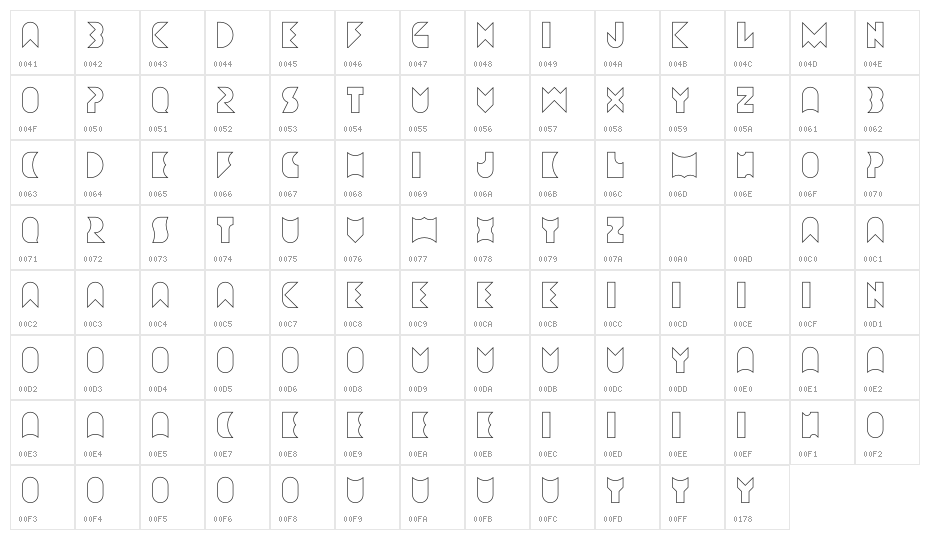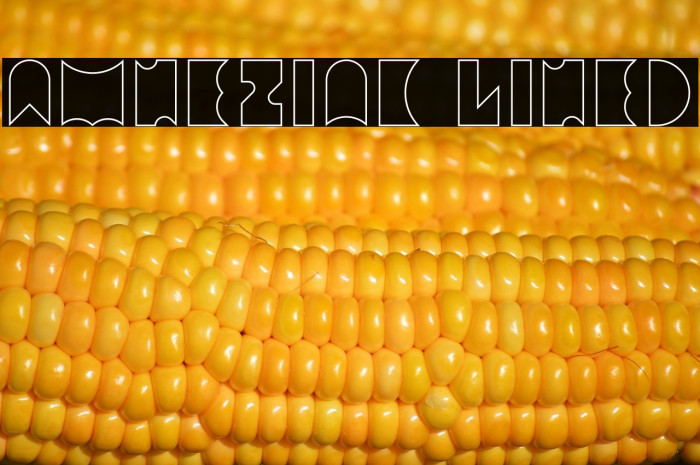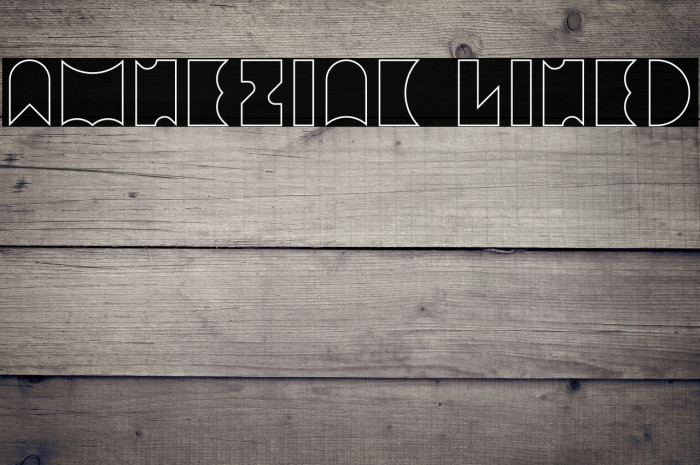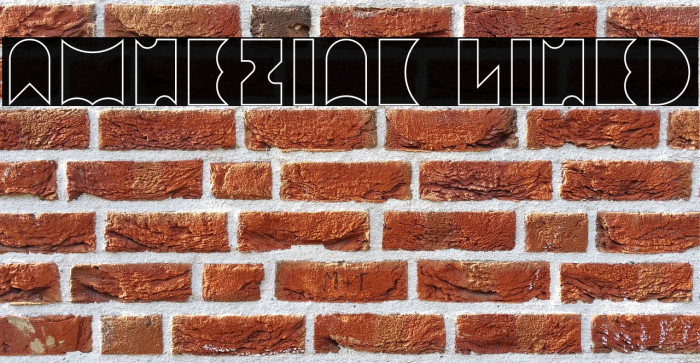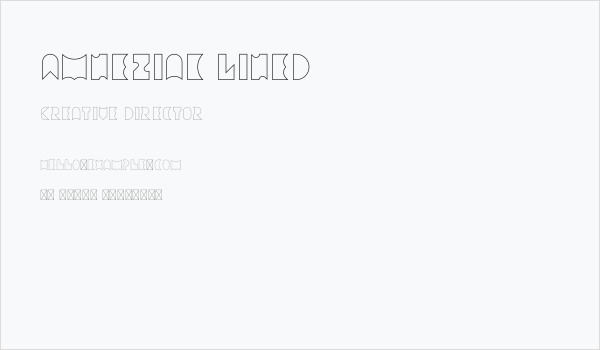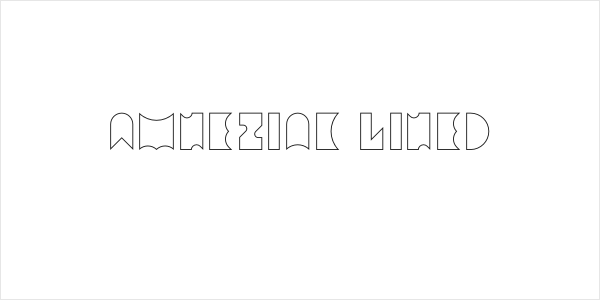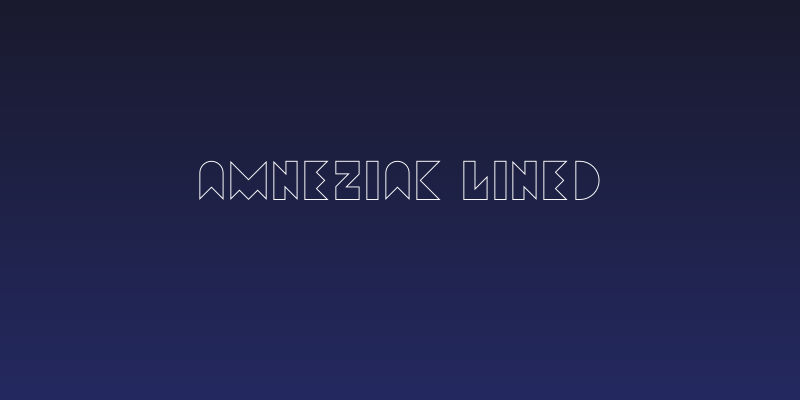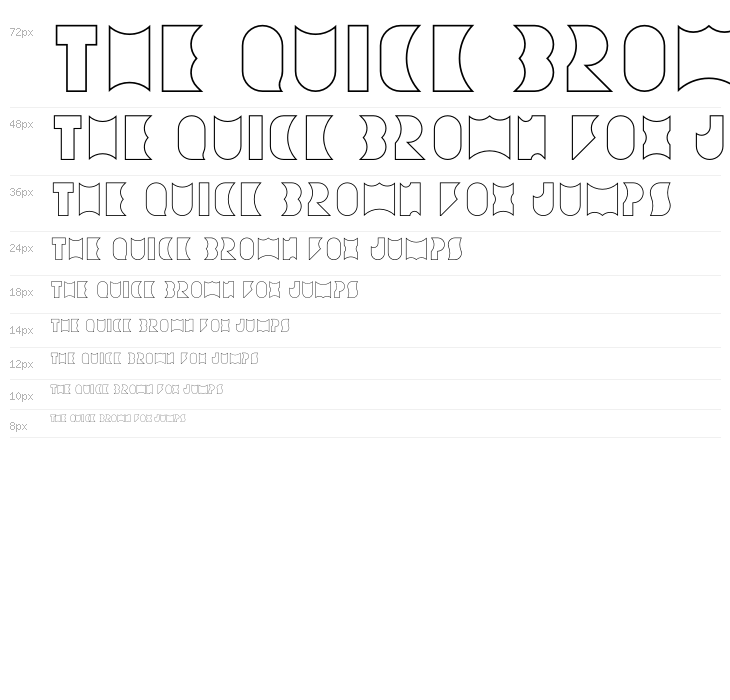
Amneziak Lined Font
Amneziak Lined Description
This font features a unique and bold geometric design with sharp angles and clean lines. Each character is constructed with a series of straight edges and pointed corners, creating a futuristic and edgy appearance. The uppercase and lowercase letters maintain a consistent style, emphasizing symmetry and uniformity. The numbers and special characters follow the same design principles, ensuring a cohesive look across all elements. This font's distinct style makes it stand out, offering a modern and innovative aesthetic.
| Proposed Projects | Ideal for modern branding, tech-related projects, futuristic posters, and digital media designs. |